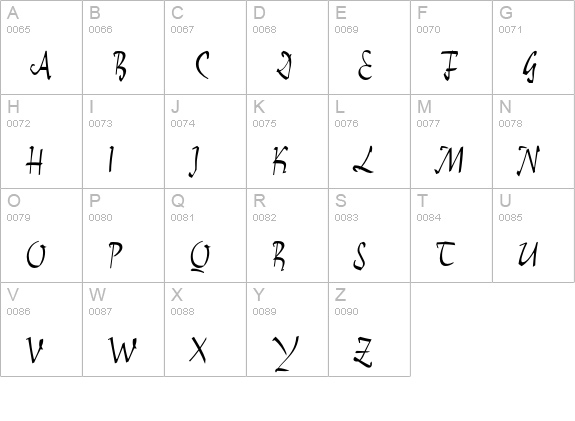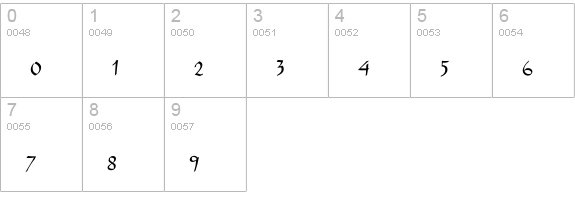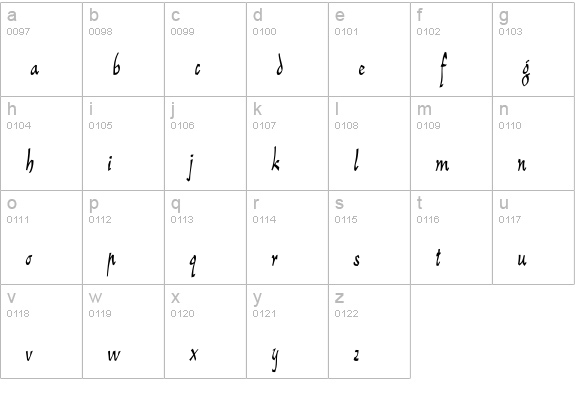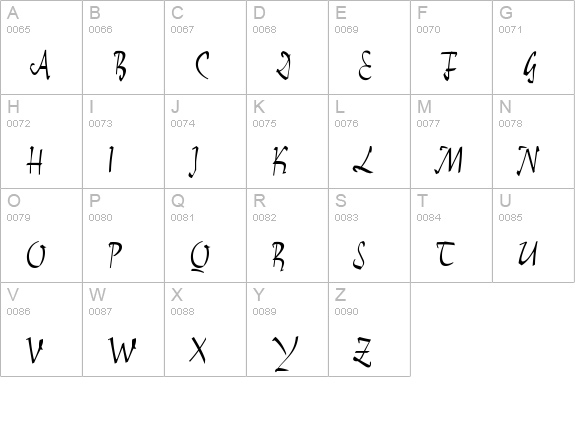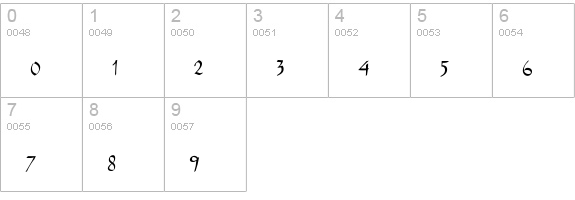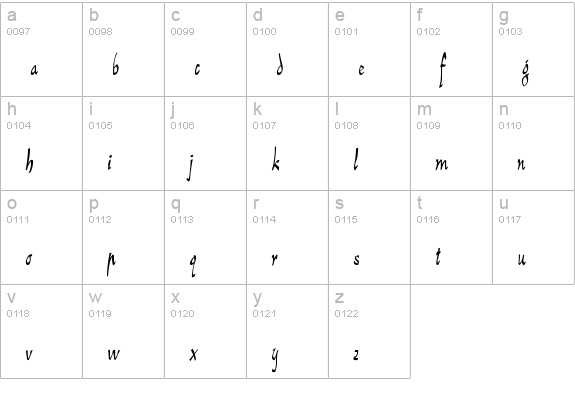
ReinerScript-Regular Font Details
ReinerScript-Regular is the standard, neutral variant in the ReinerScript typeface family \xE2\x80\x94 well suited to general body text, paragraphs, and standard typographic work.
ReinerScript-Regular font is a bold and distinctive typeface that captures the essence of creativity and uniqueness. With its elegant and fluid strokes, this font exudes a sense of modernity and sophistication. Its carefully crafted design makes it perfect for various design projects, including logos, branding, signage, and more. What makes ReinerScript-Regular font even more appealing is that it is available for free download at FontsMarket.com. This means that anyone can access and use this remarkable font without any cost. Whether you are a professional designer or a creative enthusiast, ReinerScript-Regular font provides you with the opportunity to enhance your projects with a touch of originality and style. Featuring a wide range of characters, including uppercase and lowercase letters, numbers, punctuation marks, and special symbols, ReinerScript-Regular font offers versatility and flexibility. Its clean and legible appearance ensures that your message is conveyed effectively while adding a touch of sophistication to your design. The smooth and flowing curves of ReinerScript-Regular font bring a sense of energy and dynamism to your typography. Whether used in headers, titles, or body text, this font will captivate your audience and leave a lasting impression. Its unique personality and attention to detail make it stand out from other fonts, making your designs truly memorable. So, if you are looking for a font that combines creativity, elegance, and affordability, look no further than ReinerScript-Regular font. Download it for free at FontsMarket.com and unleash your creativity without any limitations. Elevate your designs and make a statement with this exceptional font that is freely available to all.